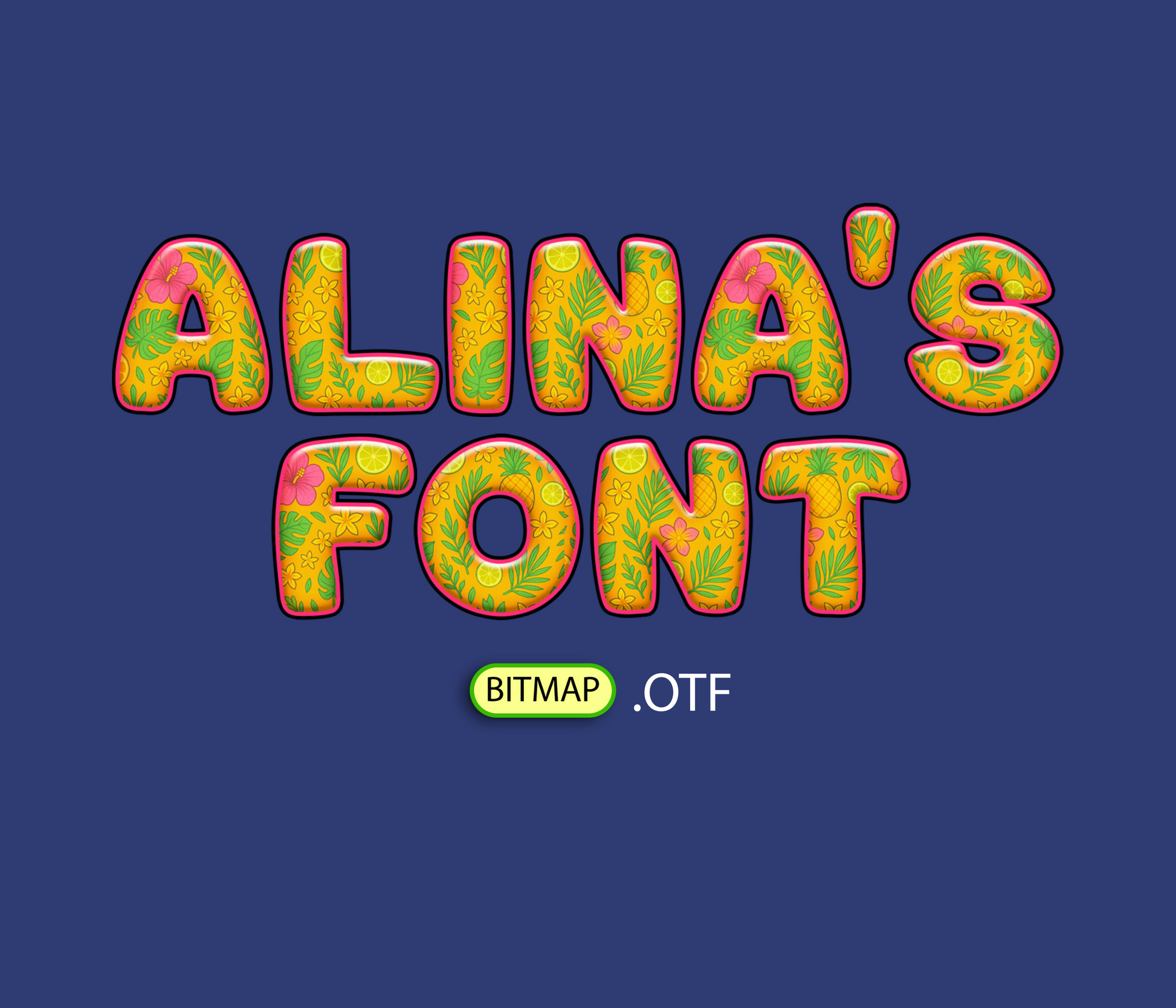
Kona Coast Typeface Textured
Journey into the spectacular world of Pacific archipelago beauty with our Kona Coast Typeface, reflecting the splendor of white sand beaches, tropical rainforests, and endless summer days. Perfect for vacation rental owners, smoothie shops, beach yoga studios, and artistic professionals, this font channels the harmonious, sun-warmed atmosphere of Hawaiian hideaways into your designs. Build remarkable visuals, surf-inspired products, or online content with the blissful, island-hopping spirit of ukulele melodies and crystalline tides.
Our Kona Coast Typeface features natural, current-inspired contours and mellow letterforms expressing the balanced yet energetic character of seaside escapes. Ideal for:
- Leisure Sector: Develop striking identities, packaging designs, and advertising materials for beachside hotels, acai bowl cafes, and flip-flop retailers
- Educational Design: Wonderful for oceanic exploration books, tropical-themed gatherings, and curriculum materials featuring underwater adventures
- Digital Content: Transform online spaces, lifestyle blogs, and social platforms with coast-themed typography and imagery that radiate island tranquility and discovery
- Learning Resources: Incorporate distinctive style into Pacific island studies, vacation guide materials, and promotions for hidden tropical gems
- Craft Projects: Infuse seaside elegance into party invitations, photo albums, and decorative pieces influenced by the allure of beach sunrises and tropical blooms